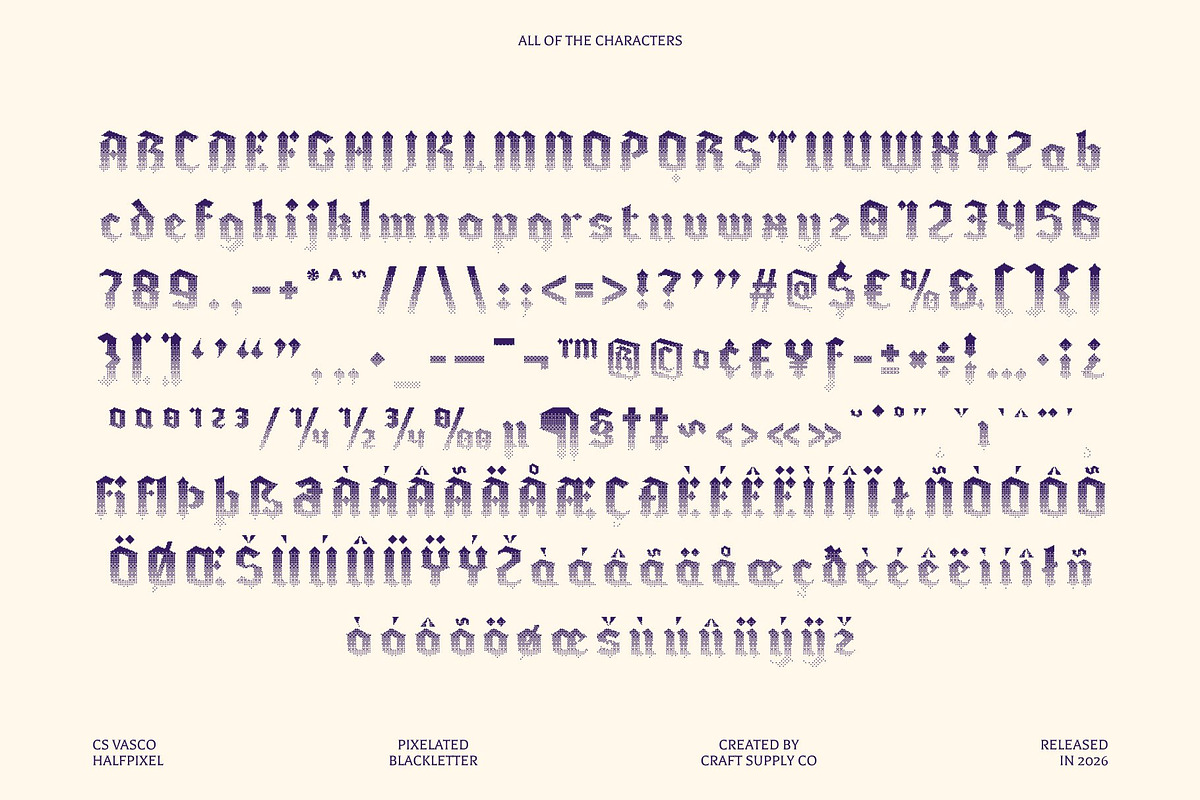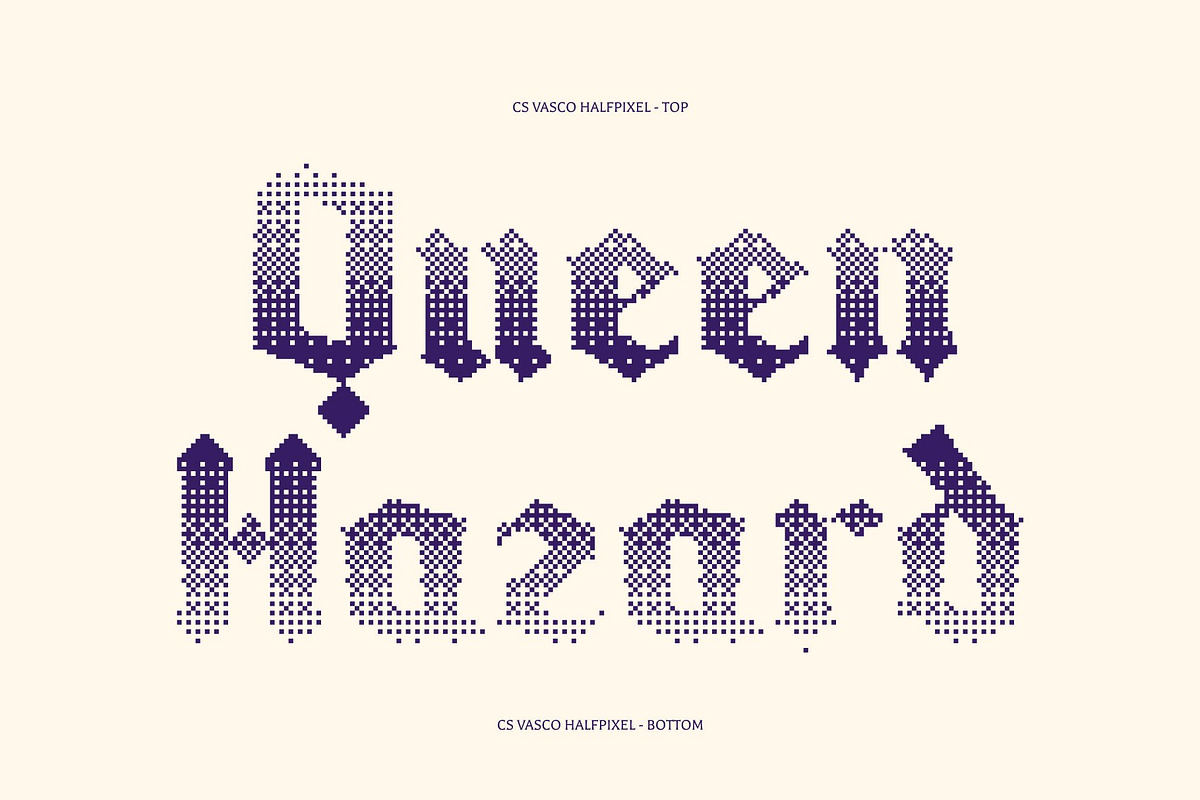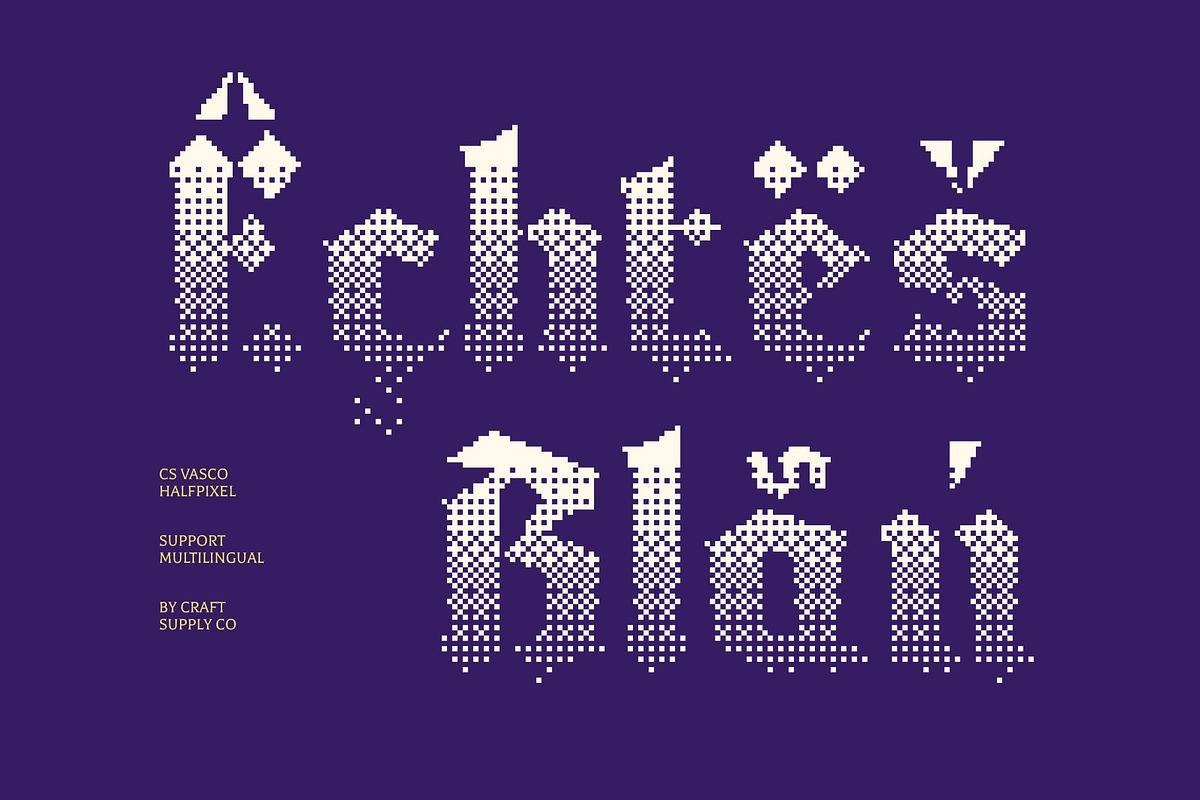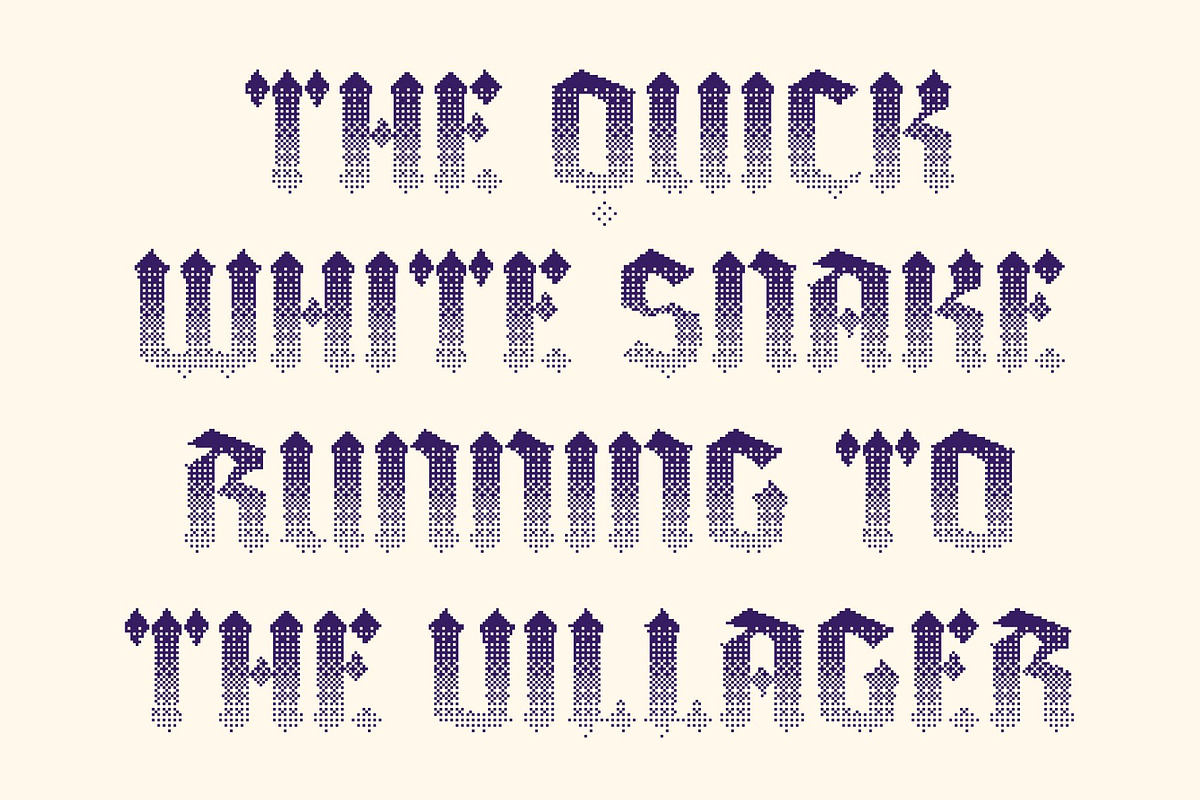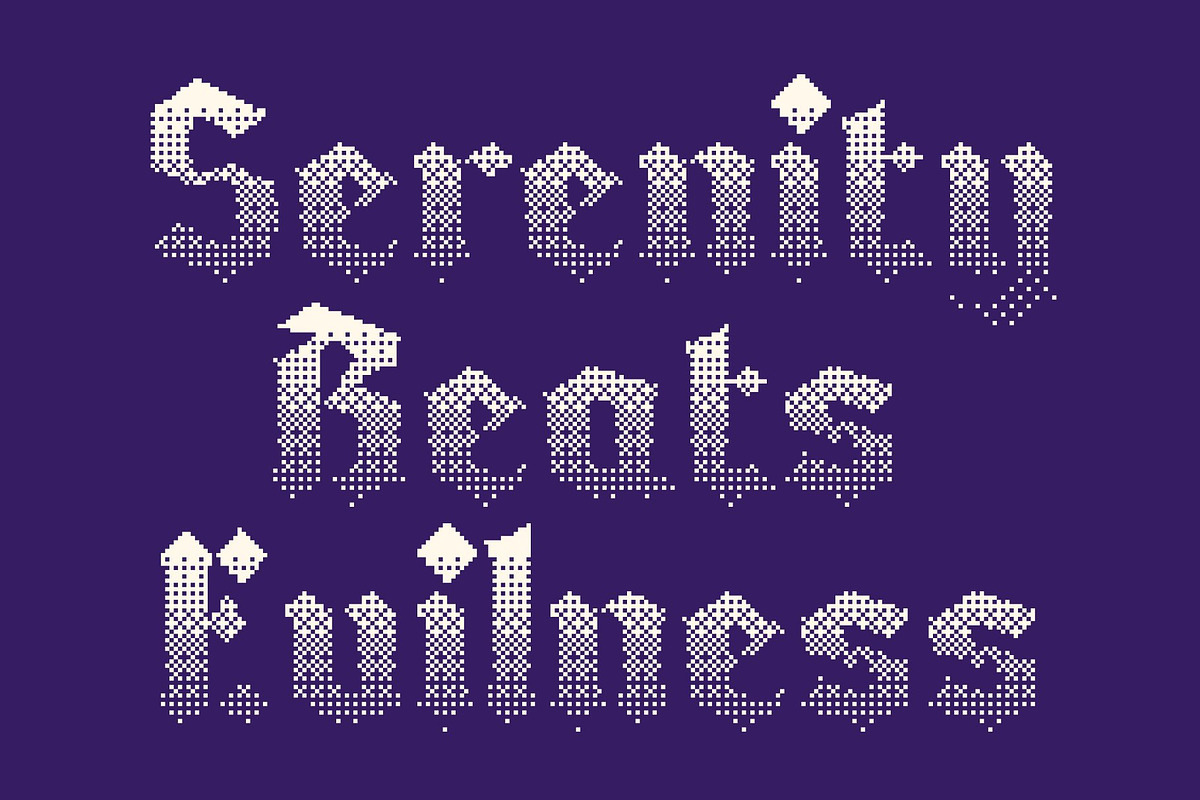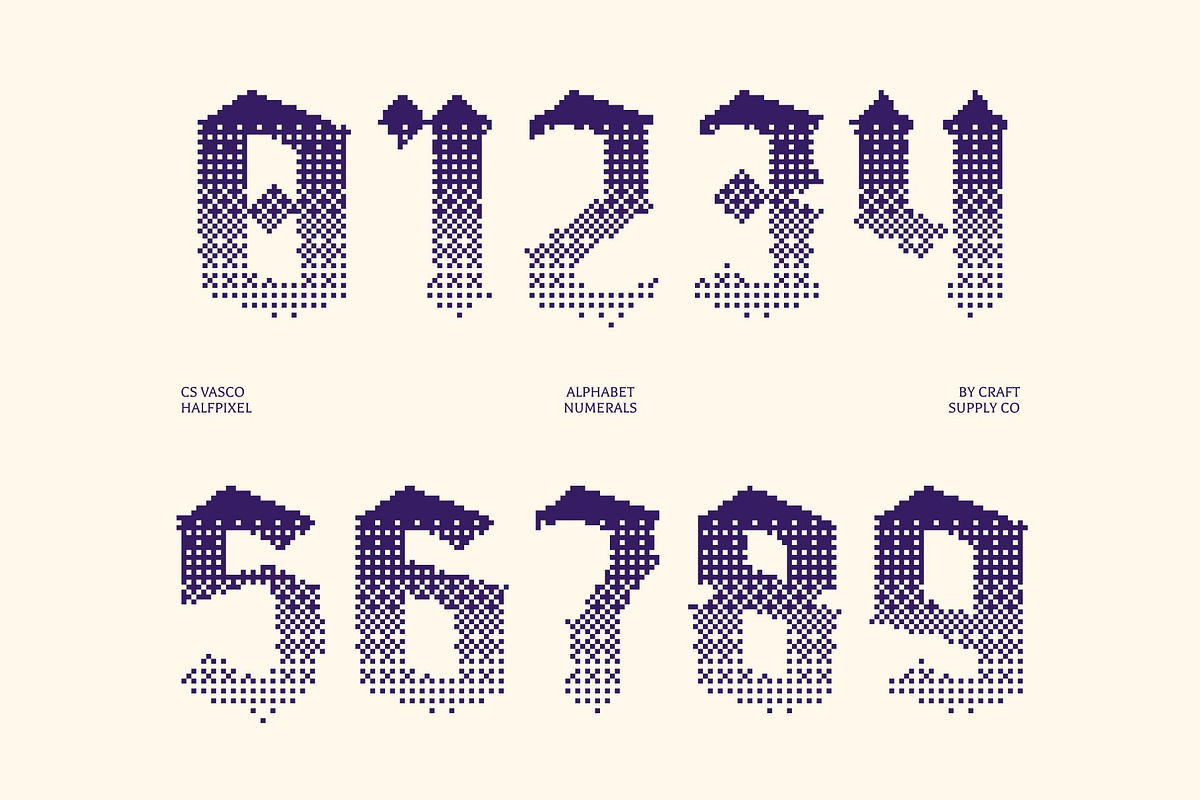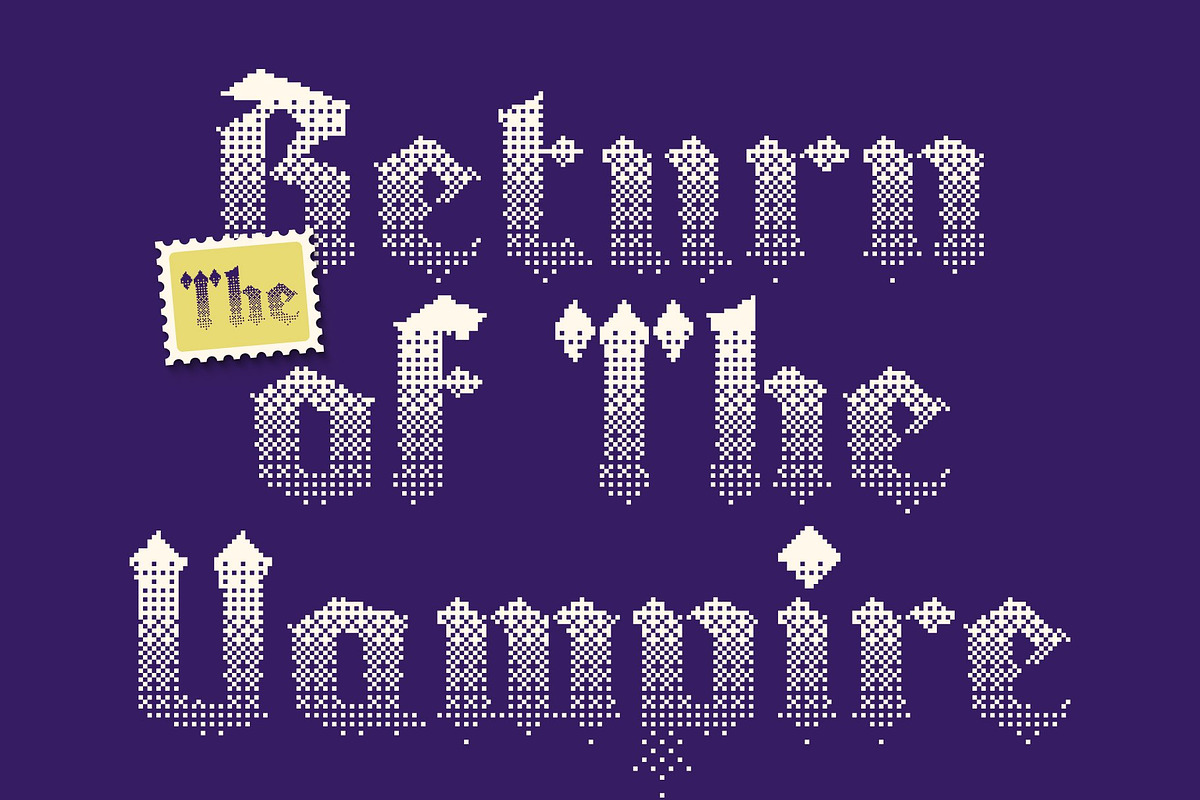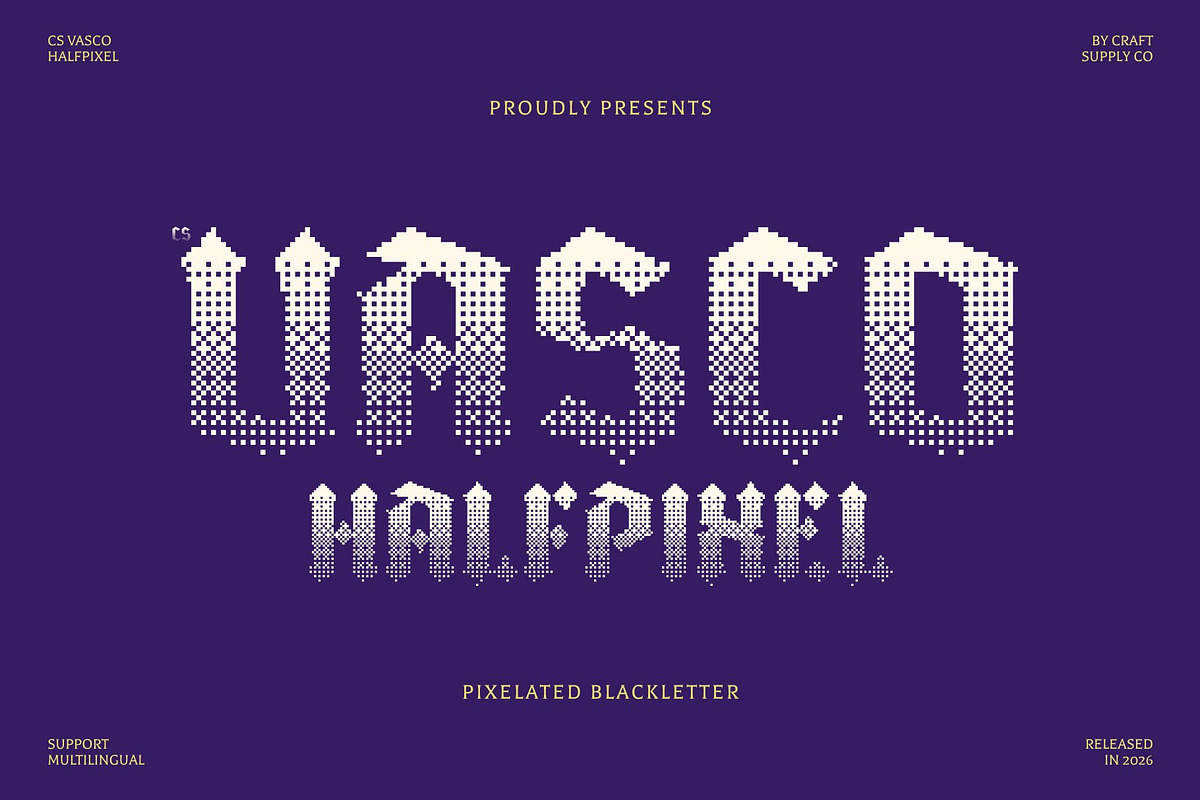
CS Vasco Halfpixel
CS Vasco Halfpixel – Classic Blackletter Display Font
A Timeless Expression of Tradition This is a striking blackletter display typeface inspired by the elegance of historic manuscripts. Its sharp letterforms, prominent angles, and bold strokes create a dramatic and authoritative presence, perfect for designs that aim to convey heritage and timeless sophistication.
Distinctive Blackletter Character Rooted in the rich tradition of medieval typography, this font features thick strokes and angular forms that embody the artistry of classic blackletter style. Each character is carefully crafted to deliver strong visual impact while maintaining clear readability.
Halfpixel Finish for Smooth Digital Refinement Enhanced with a halfpixel texture, the font introduces subtle anti-aliasing that softens edges and improves clarity. This gentle digital smoothing preserves the traditional blackletter personality while adding a modern retro-digital touch.
Versatile for Formal and Heritage Designs Perfect for formal invitations, event posters, branding, packaging, and editorial projects, this font adds an atmosphere of mystery, elegance, and grandeur to any composition.
Where Heritage Meets Modern Precision By combining historical inspiration with contemporary digital refinement, this font delivers a powerful and sophisticated typographic voice for projects that celebrate tradition with a modern edge.